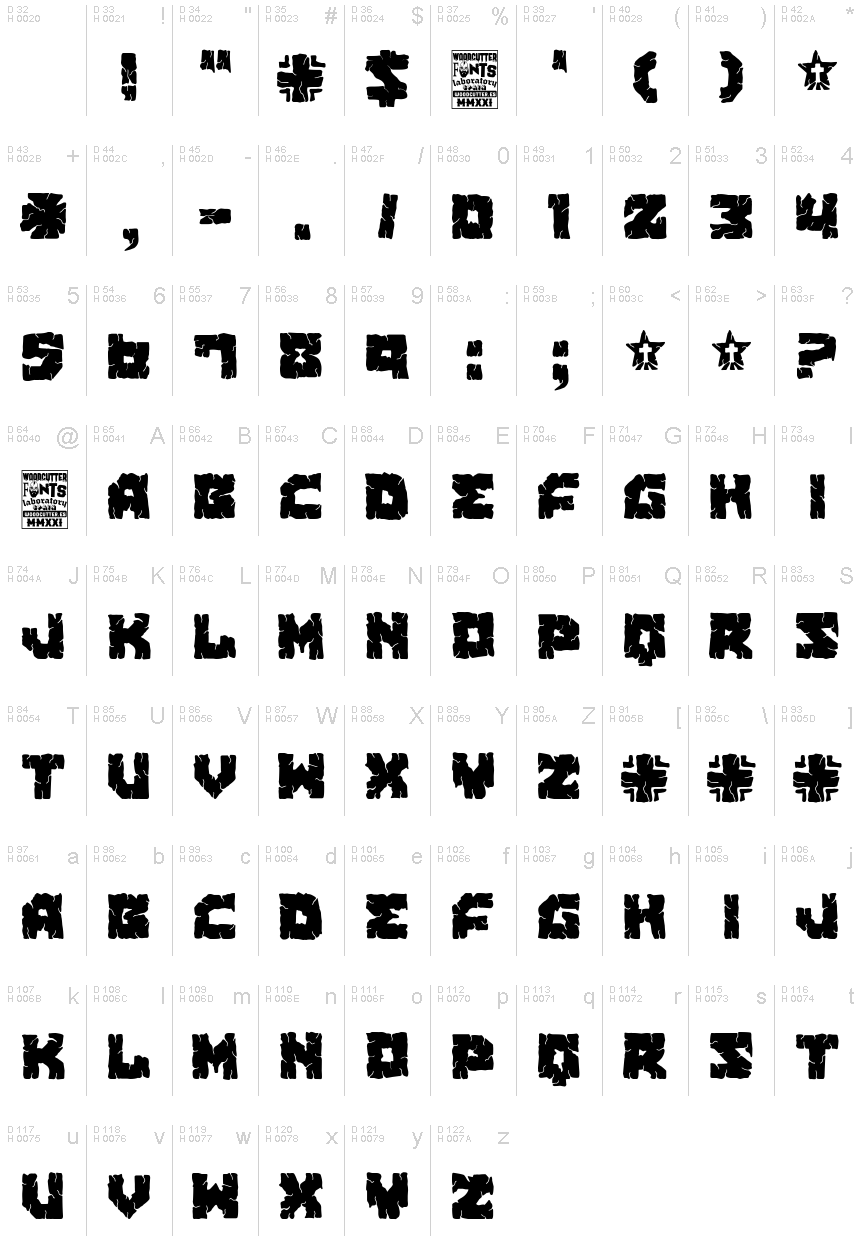
Korean Party
Korean Party font, designed by Woodcutter, is a striking decorative typeface that instantly commands attention. Its bold presence and expanded form create an exhilarating visual experience, making it perfect for designs that seek to evoke energy and enthusiasm. The font's unique character exhibits playful irregularities reminiscent of festive celebrations, giving it a vibrant and eclectic spirit.
Korean Party excels in applications where creativity takes center stage—think lively posters, party invitations, or engaging signage. Its dynamic style captures the essence of celebration and cultural richness, ensuring that any message stands out. With its distinctive appeal, this font invites exploration and joy in design contexts where fun is paramount.